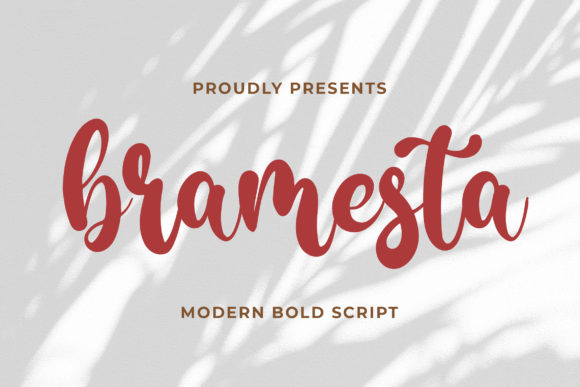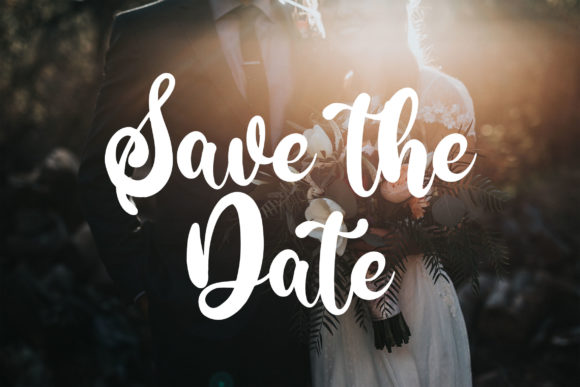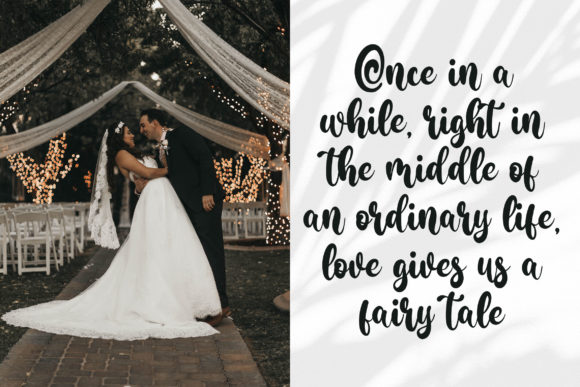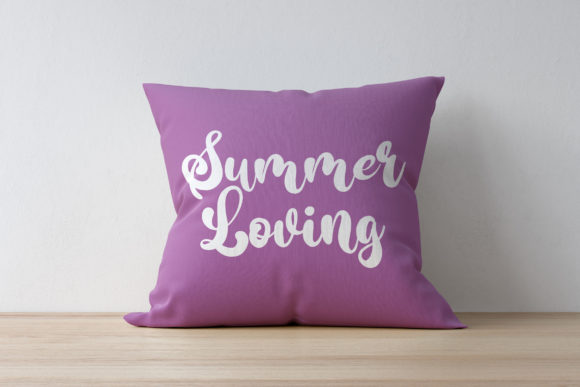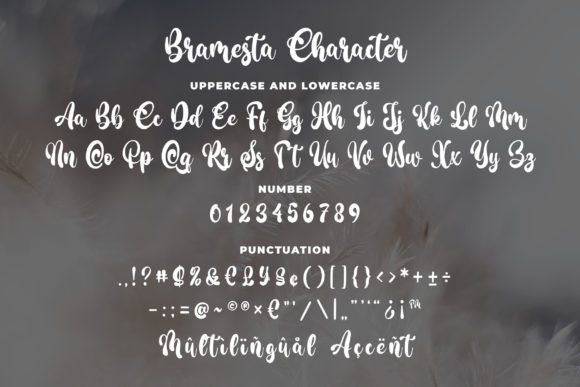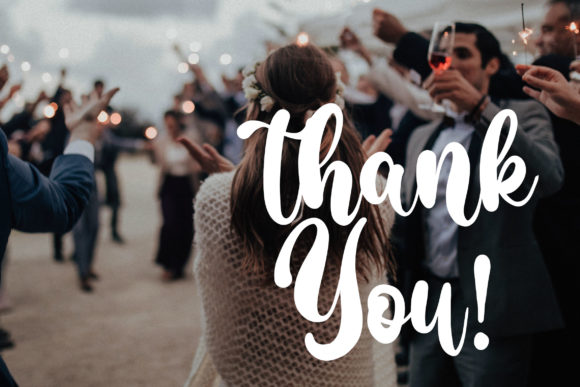
Bramesta Font
About Bramesta Font
Bramesta is a bold script font made with natural brushpen strokes. It is perfectly suited for a wide variety of projects!